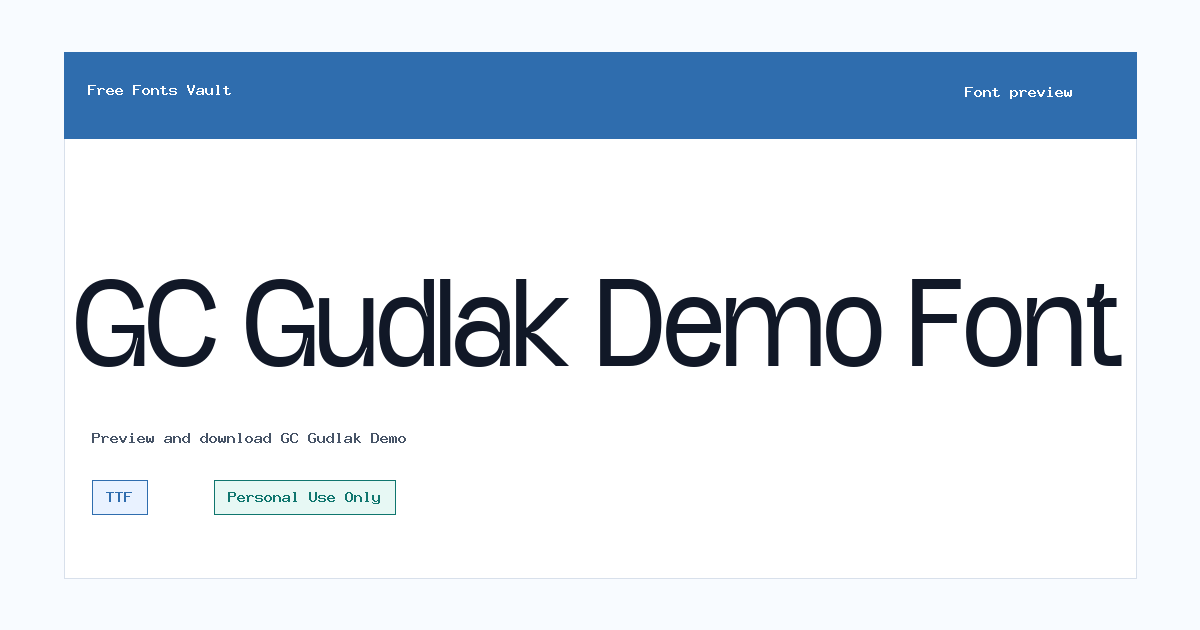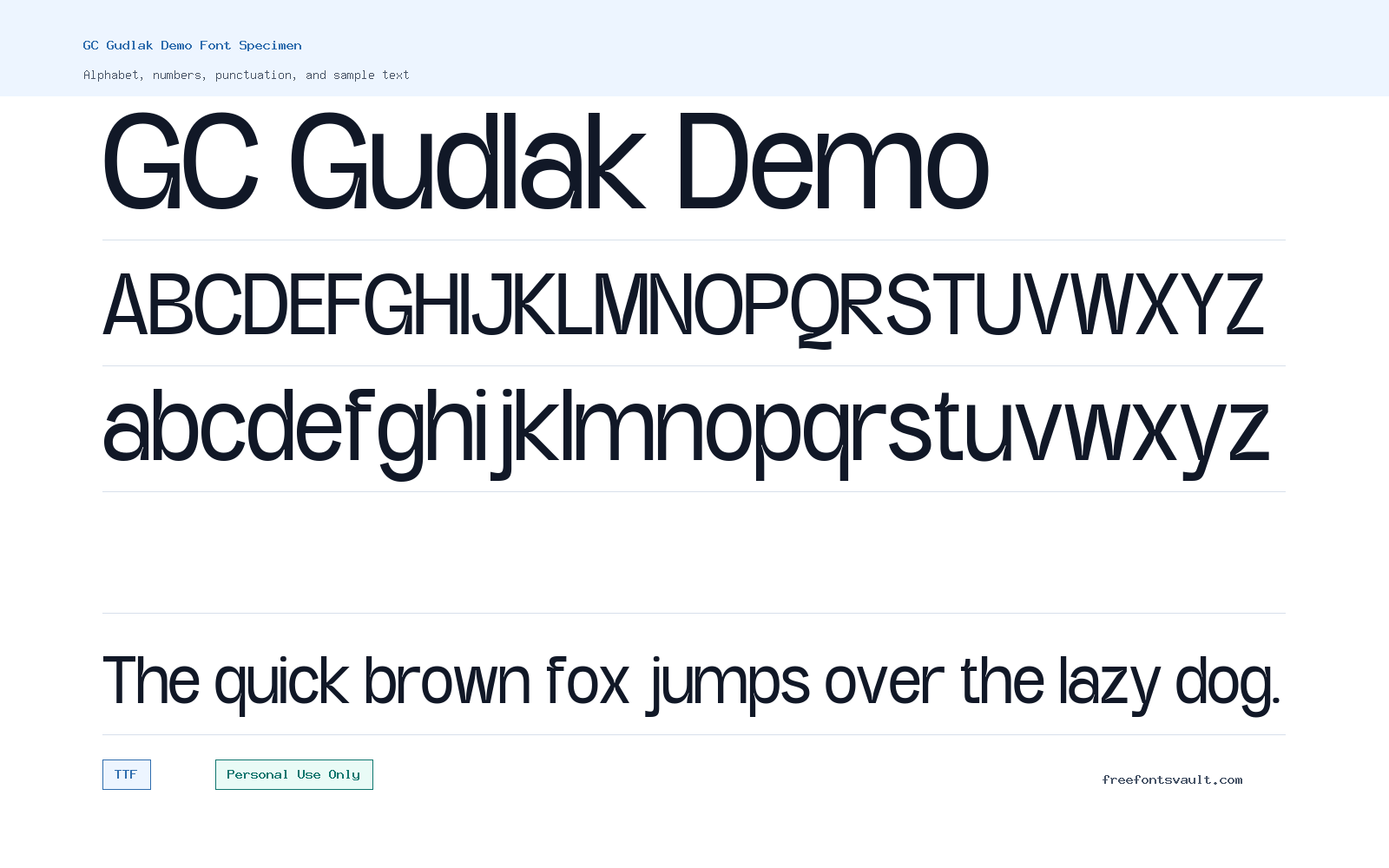
GC Gudlak Demo
- Designer Hanif Dwi Sulistyo of Glyphonic
GC Gudlak Demo is a sans serif demo font family from Glyphonic with regular and bold TTF files for personal-use design testing.
About GC Gudlak Demo
GC Gudlak Demo has a clean sans serif structure, making it easy to try in headings, short labels, posters, and simple layout tests. The family name and file names point to a demo release, so it is best treated as a trial version rather than a full commercial font package. The download contains regular and bold styles, which gives visitors enough range to test basic hierarchy: use the regular weight for supporting text and the bold weight for stronger titles or callouts.
- Sans serif demo family suited for testing titles, short text, and basic visual hierarchy.
- Personal mockups, poster drafts, social graphics, and font pairing tests.
- Short headings, name previews, labels, and layout experiments where regular and bold weights are enough.
The designer is listed as Hanif Dwi Sulistyo of Glyphonic, with Glyphonic also listed as the foundry.
Start by previewing the exact text you want to design. Compare the regular and bold files at small and large sizes, then check spacing around tricky letter pairs, numbers, and punctuation. For longer paragraphs, test readability carefully; a two-weight demo family may be better for display use than full text-heavy layouts. Pair it with a neutral body font if your design needs longer reading sections.
Who designed GC Gudlak Demo?
The designer is listed as Hanif Dwi Sulistyo of Glyphonic.
What is GC Gudlak Demo best used for?
It is most practical for personal mockups, short headings, poster drafts, social graphics, and testing how the family looks in regular and bold weights.